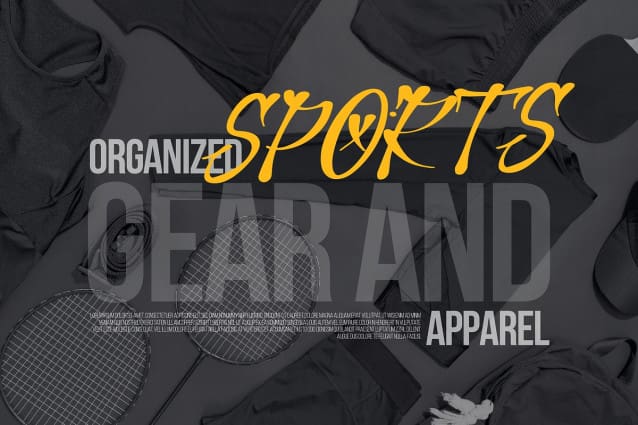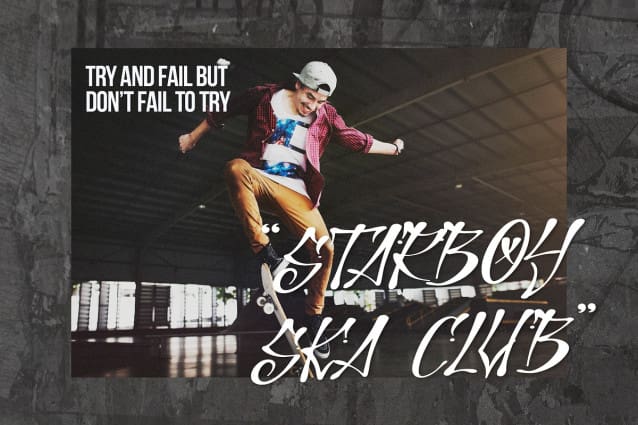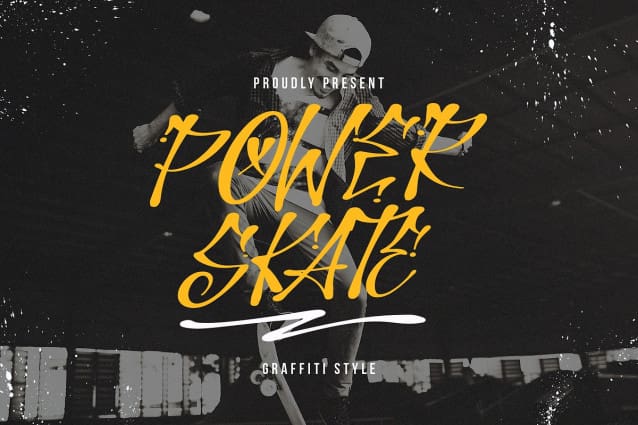
Power Skate Font
Power Skate Font | Graffiti Style, from Denustudios, suitable for any projects such as: logos, branding projects, homeware designs, product packaging, mugs, quotes, posters, shopping bags, t-shirts, book covers, name card, invitation cards, greeting cards, label, photography, watermark, special events, and all your other lovely projects that need a Graffiti Style taste.